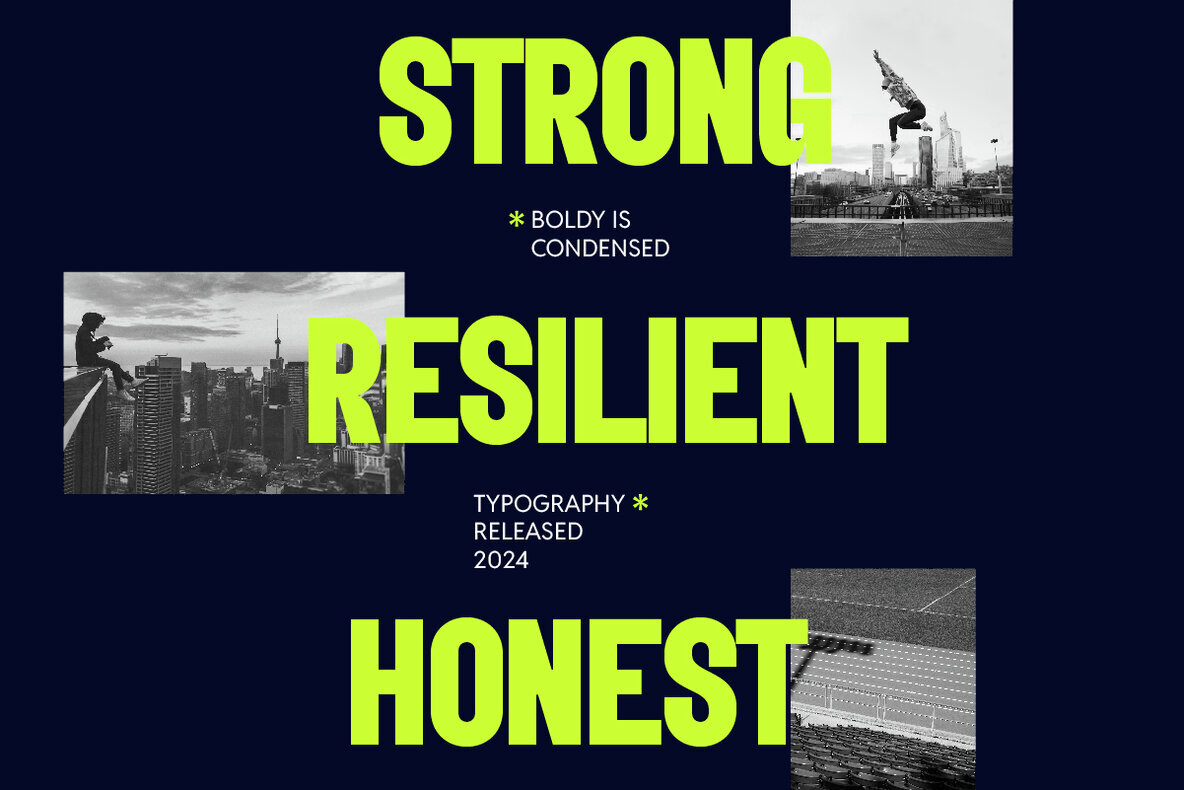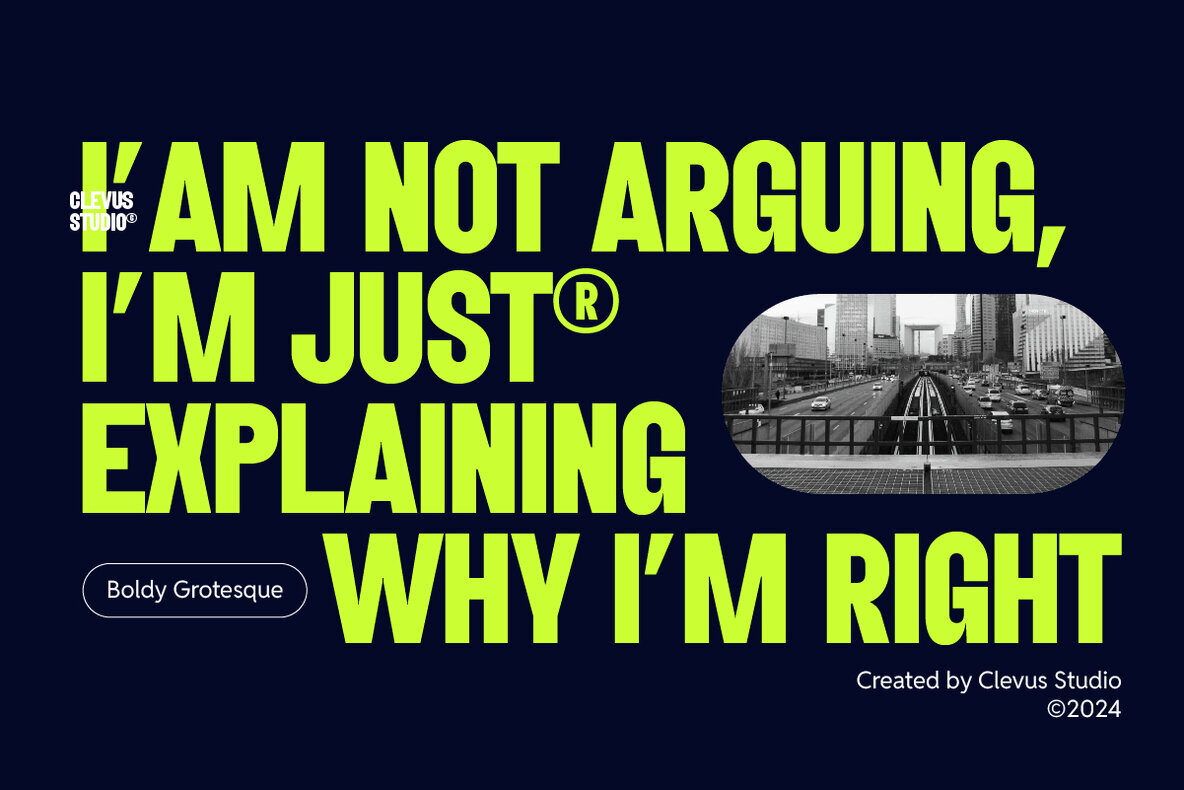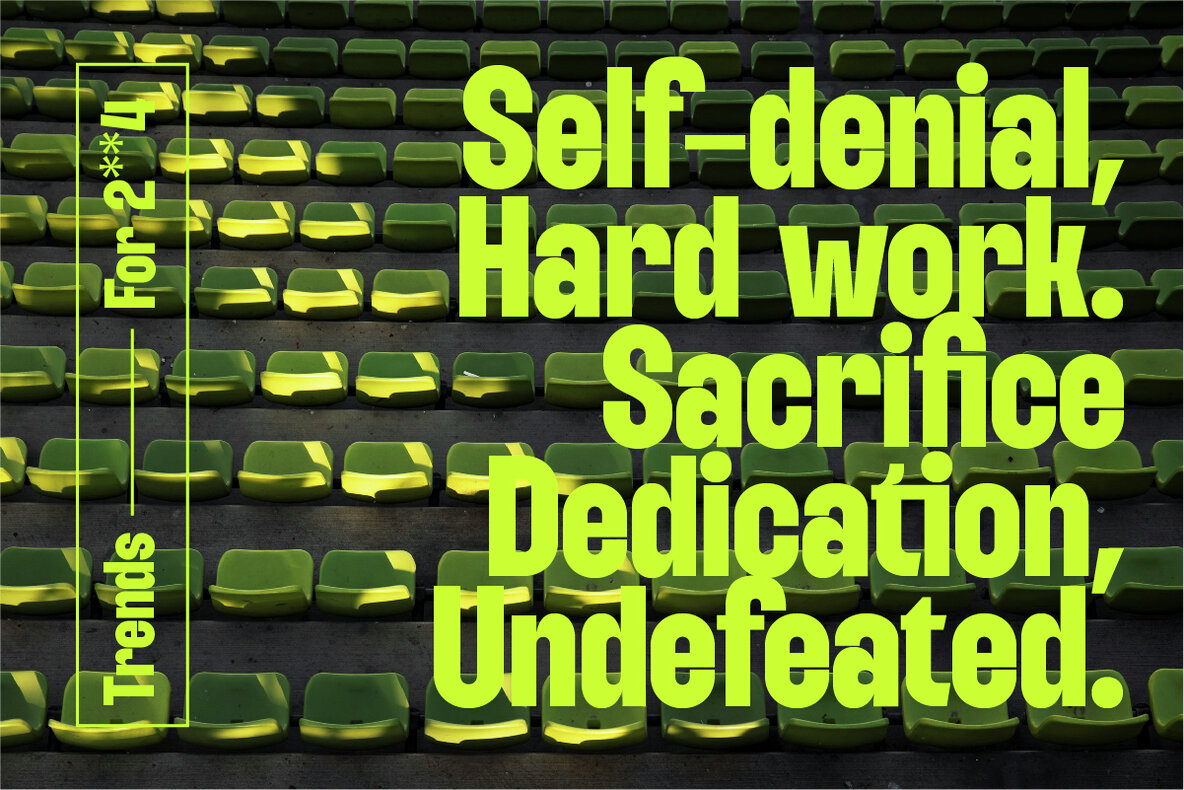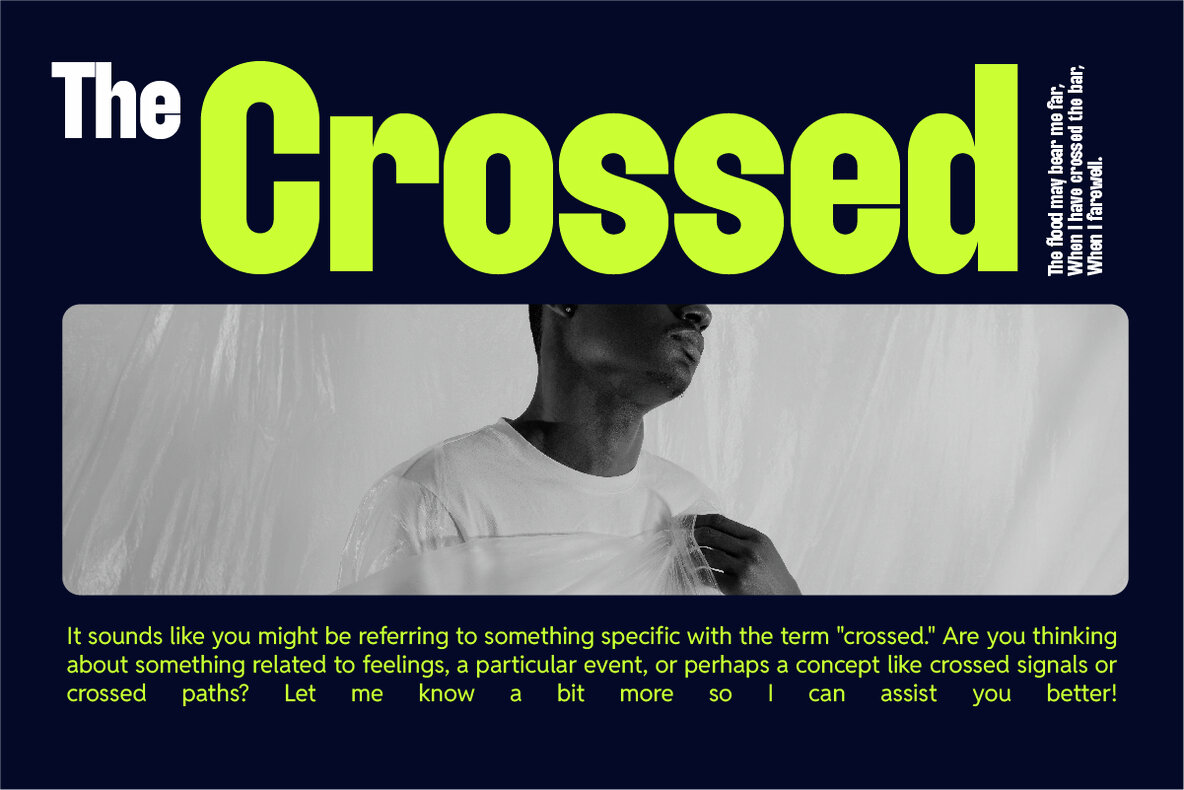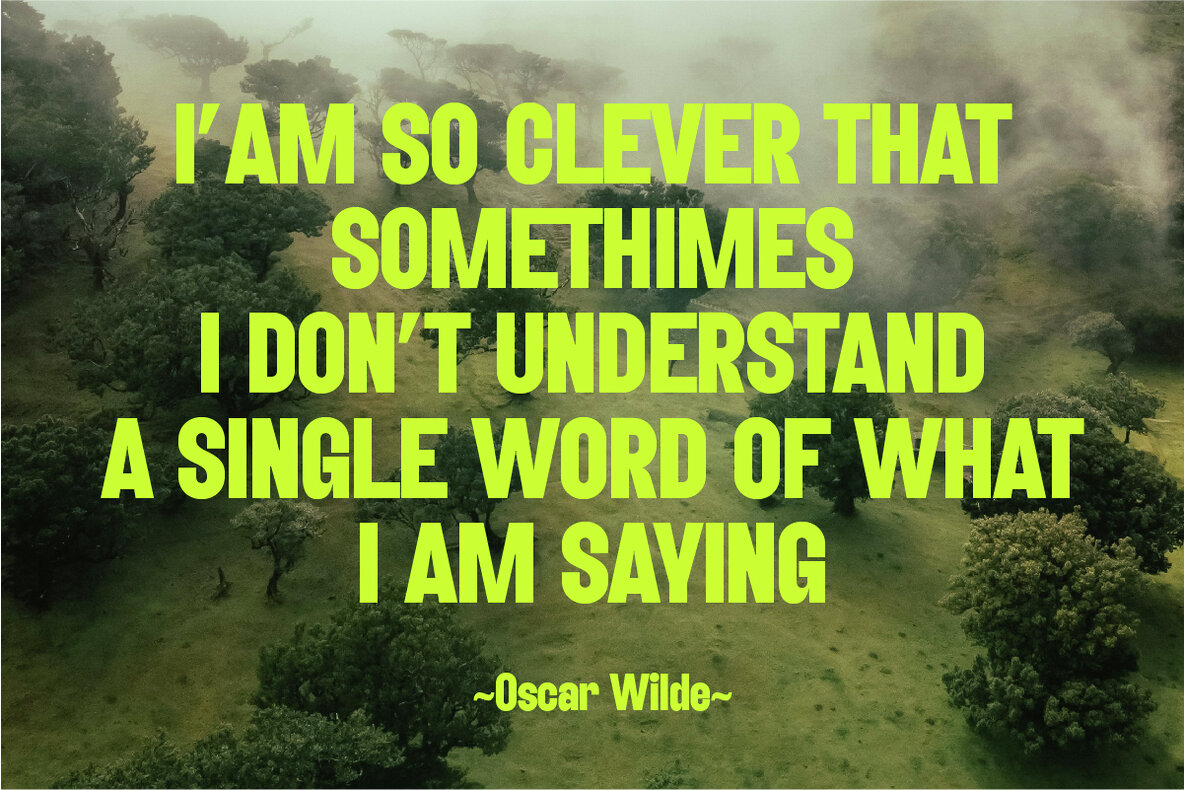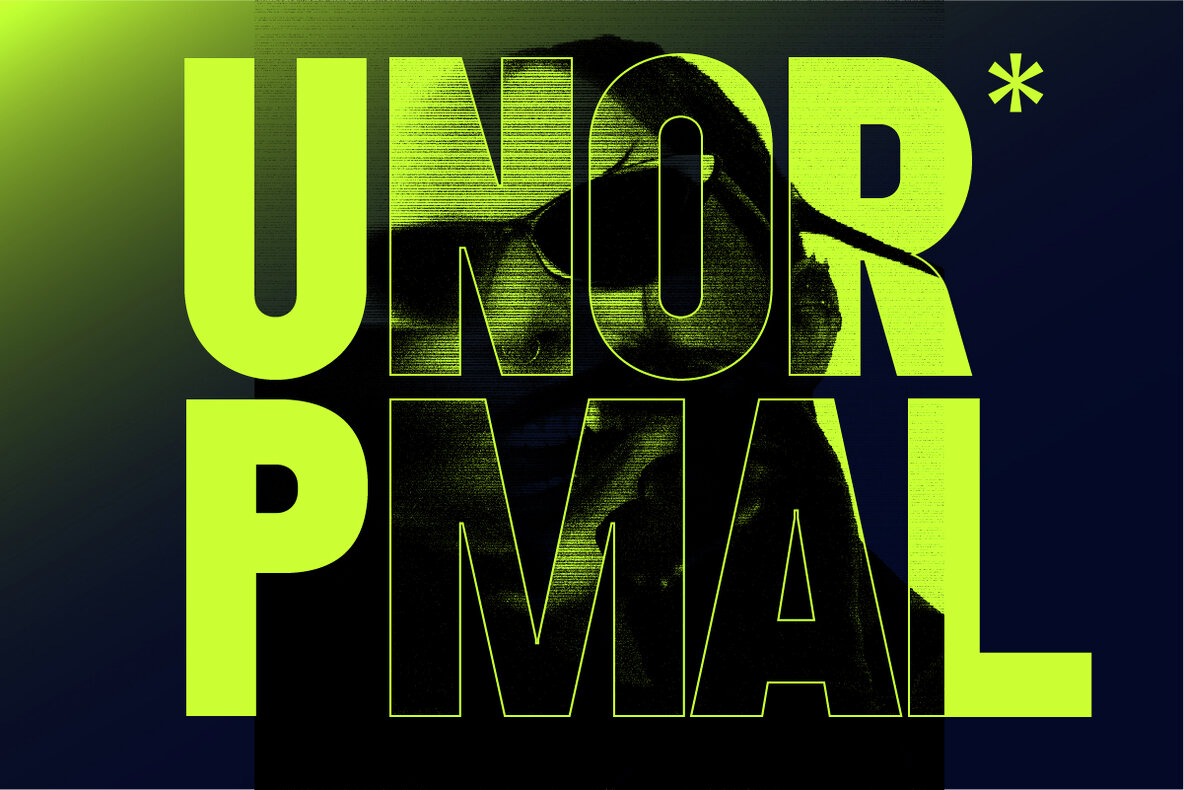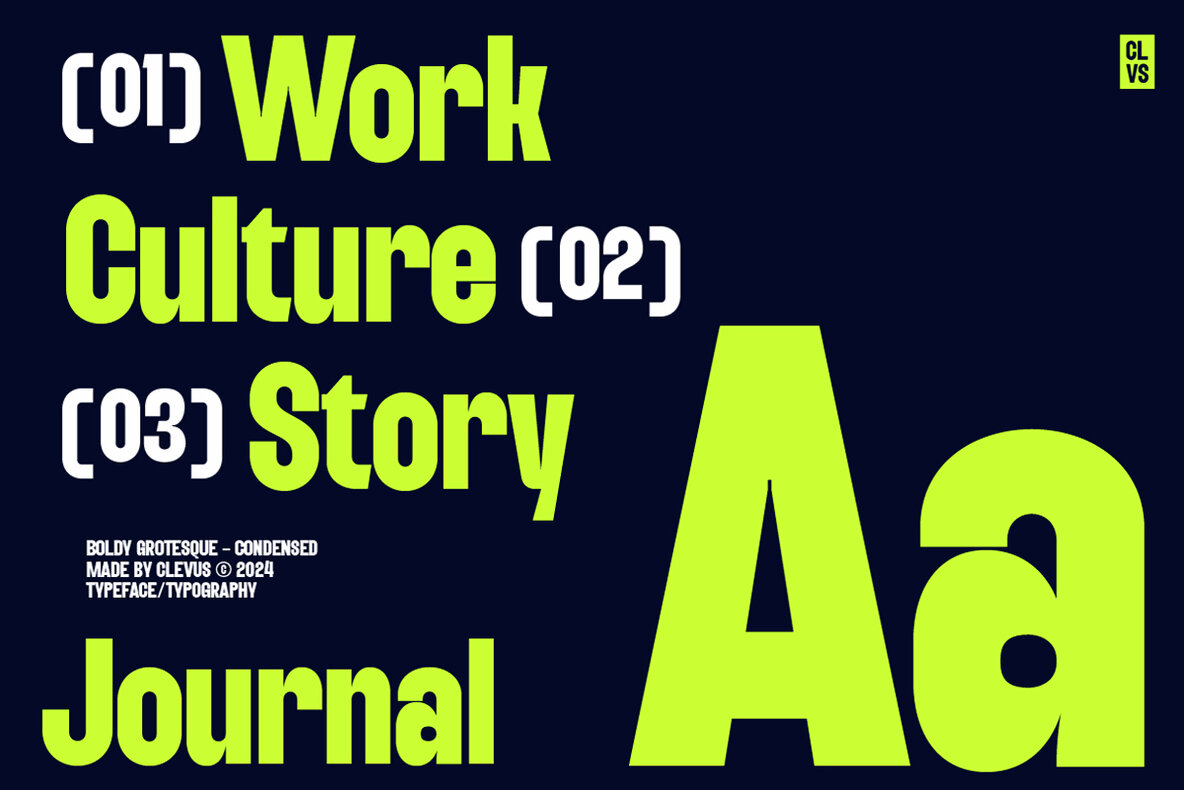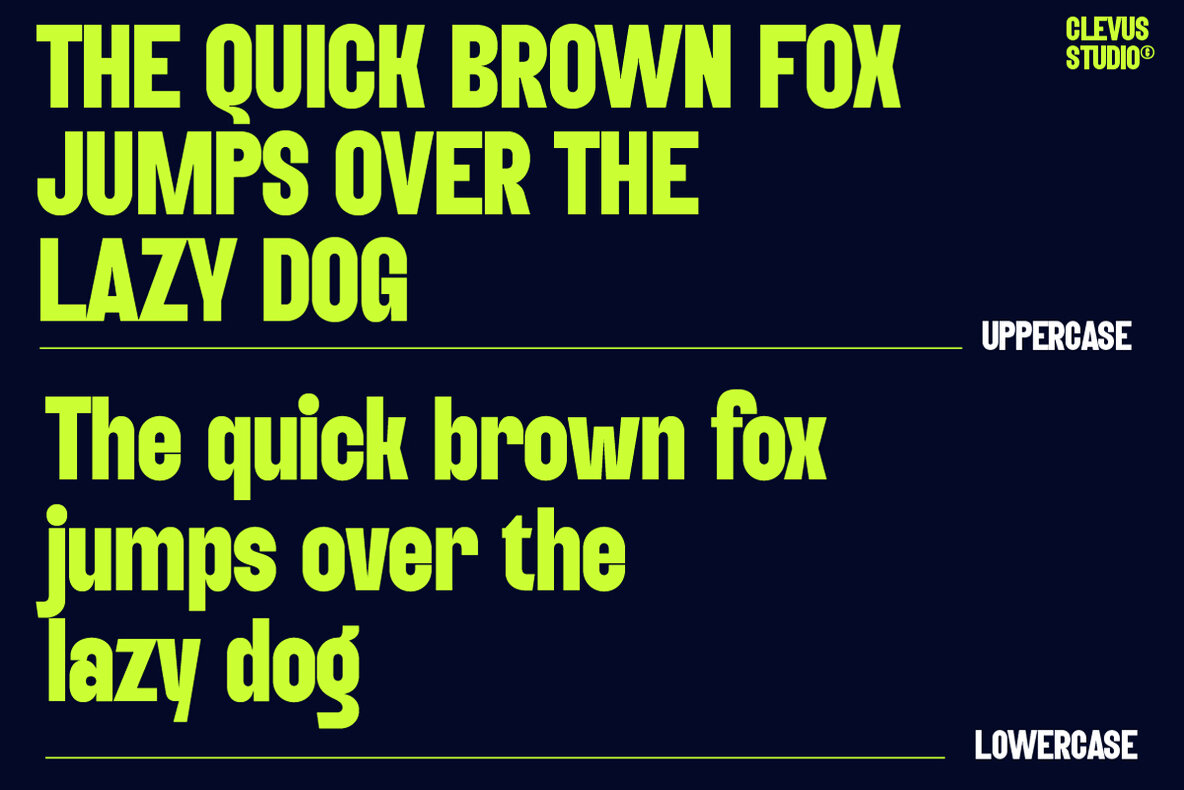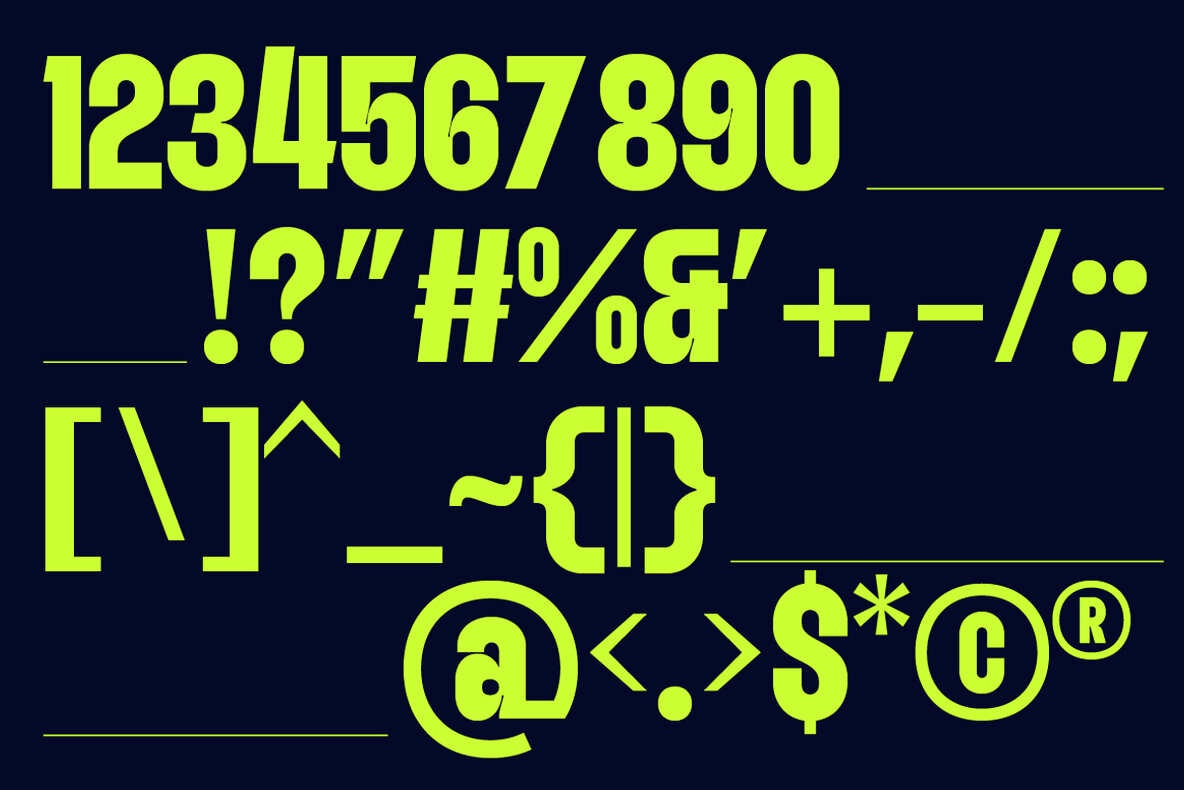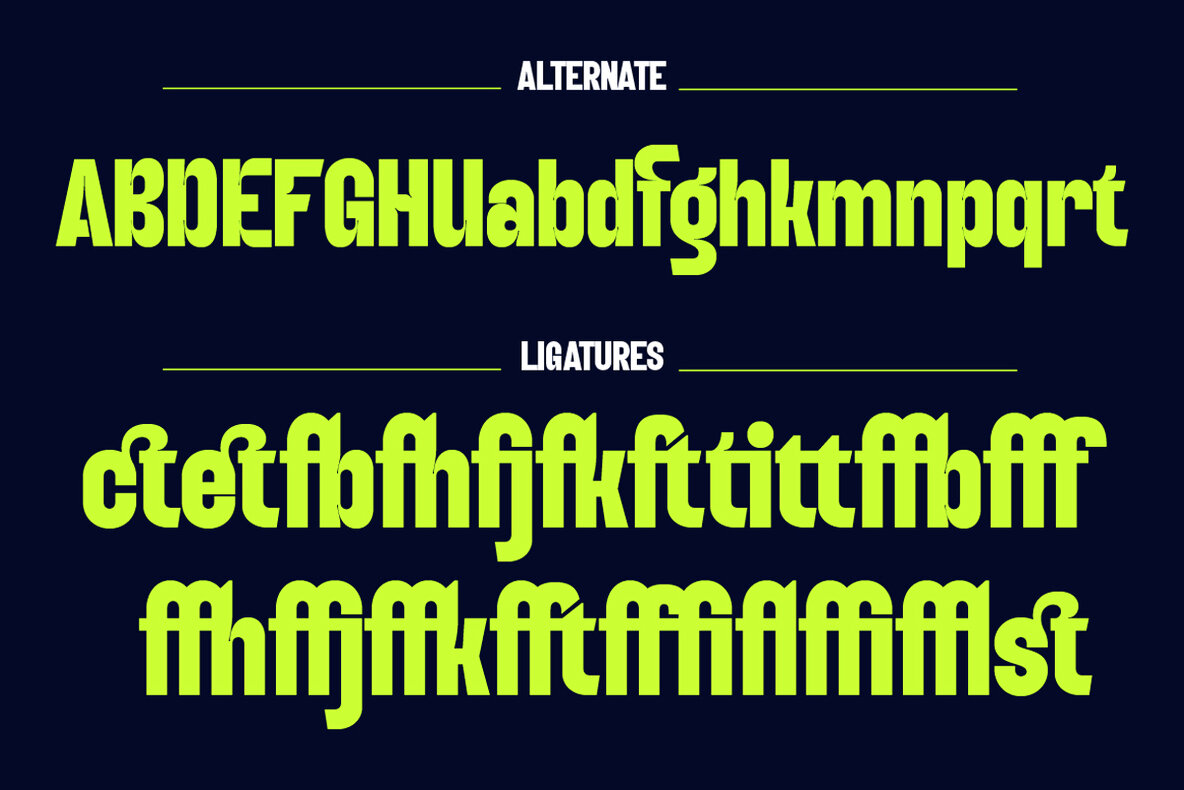
Boldy Grotesque Font
Boldy Condensed
Proudly present Boldy Grotesque Font, is a modern and bold condensed font inspired by classic grotesque typefaces. Boldy Grotesque equipped with several OpenType. Have 40 unique alternates and ligatures. Comes with alternatives and ligatures, and helps to create stunning logos, quotes, posts, blog posts, branding projects, magazine imagery, wedding invitations, poster and much more. Font Features : Language Support: Danish, English, Estonian, Filipino, Finnish, French, Friulian, Galician, German, Gusii, Indonesian, Irish, Italian, Luxembourgish, Norwegian Bokmål, Norwegian Nynorsk, Nyankole, Oromo, Portuguese, Romansh, Rombo, Spanish, Swedish, Swiss-German, Uzbek (Latin) Follow My Shop For Upcoming Updates Including Additional Glyphs And Language Support. And Please Message Me If You Want Your Language Included or If There Are Any Features or Glyph Requests, Feel Free to Send me A Message.
- 40 alternates and ligatures
Boldy Grotesque delivers a powerful impact with a sleek, contemporary style.